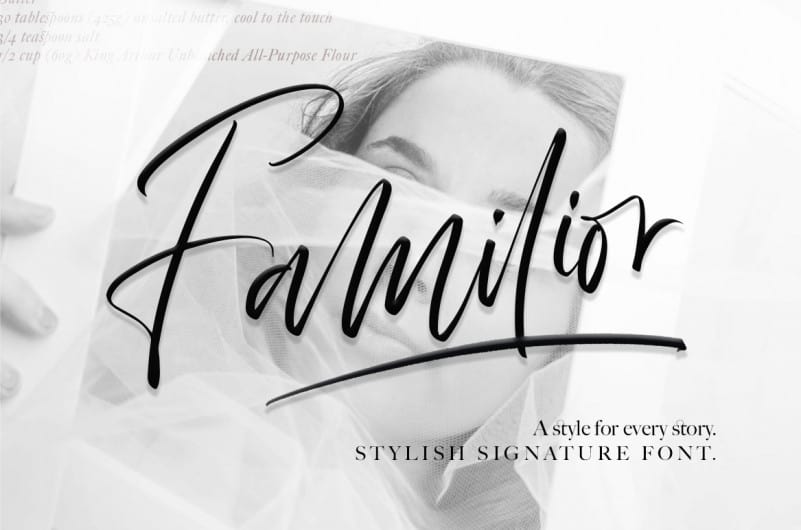
Familior Signature Font
Familior Font is a handwritten, signature font family with alternates, ening swsh, natural ligatures and swash. Inky and expressive yet readable and functional, this typeface is designed to look perfect fit for signature logos.
Familior Font is a simple font that has Stylistic standards, Stylistic Alternatives. and includes uppercase and lowercase letters, numbers and punctuation. This font is free for PERSONAL USE.